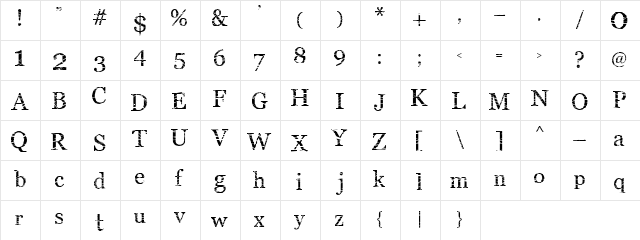
SM_middlisM Bold Free Font
SM_middlisM Bold
Foundry: Dan Meyer (smashmethod)
Designer: Dan Meyer (smashmethod)
SM_middlisM Family
Design Context for SM_middlisM
SM_middlisM is a composed and adaptable typeface that performs quietly and consistently across a wide range of design contexts. Its bold stroke weight gives it real presence on the page.
Who designed the SM_middlisM Bold font?